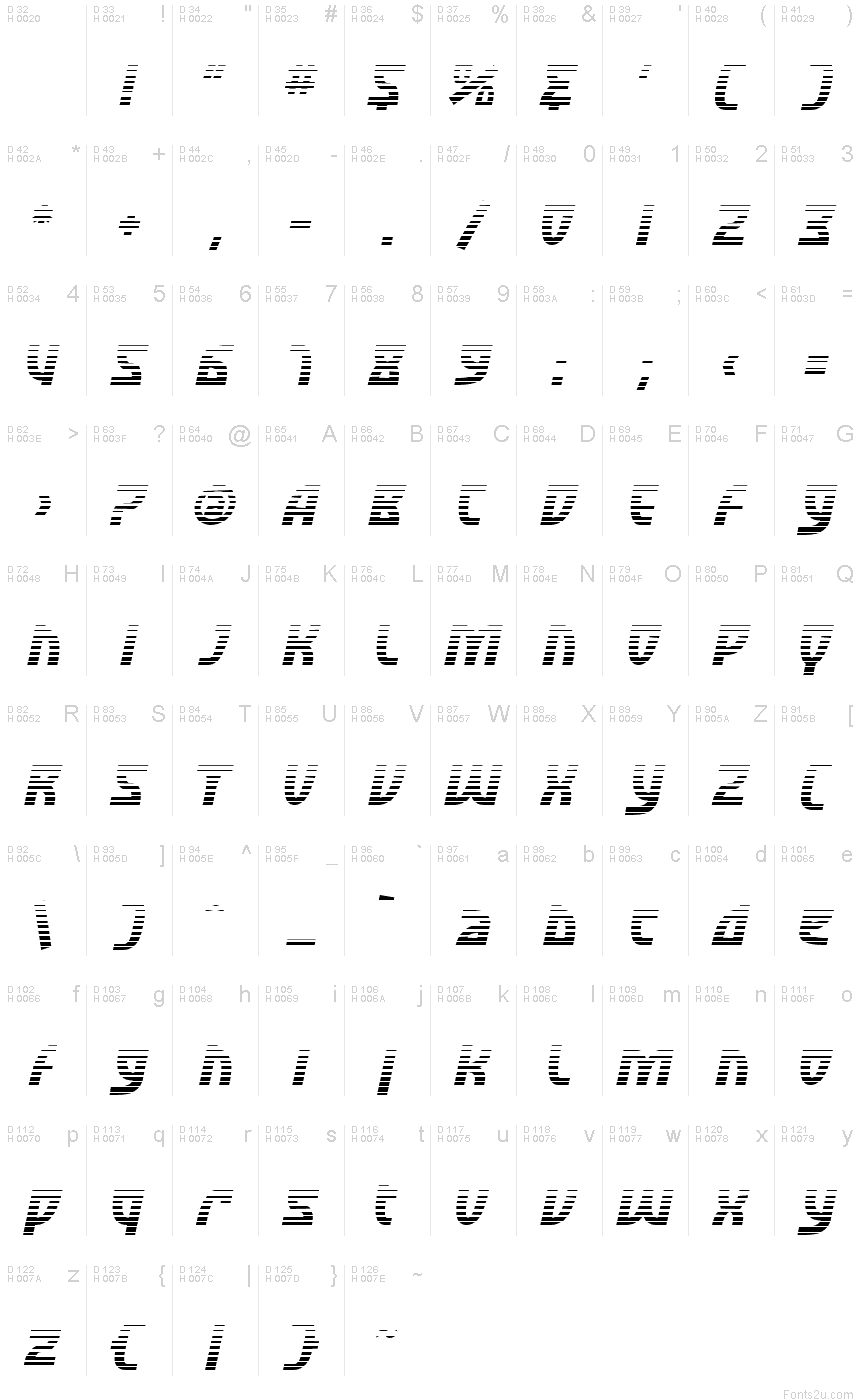
SF Retroesque FX Oblique
SF Retroesque FX Oblique, a free retro striped display font from ShyFoundry, leans hard into late-20th-century speed graphics. The caps are cut into long horizontal bands, so the letters feel like they are being scanned, swept past, or seen through motion, with the slant pushing that streamlined, arcade-era mood even further.
This free font fits posters, title cards, album covers, sports branding, and nightclub flyers where a quick burst of movement matters more than quiet neutrality. It also works well for short headlines and logo-style words, because the broken stripe motif gives even a few letters a strong sense of pace.